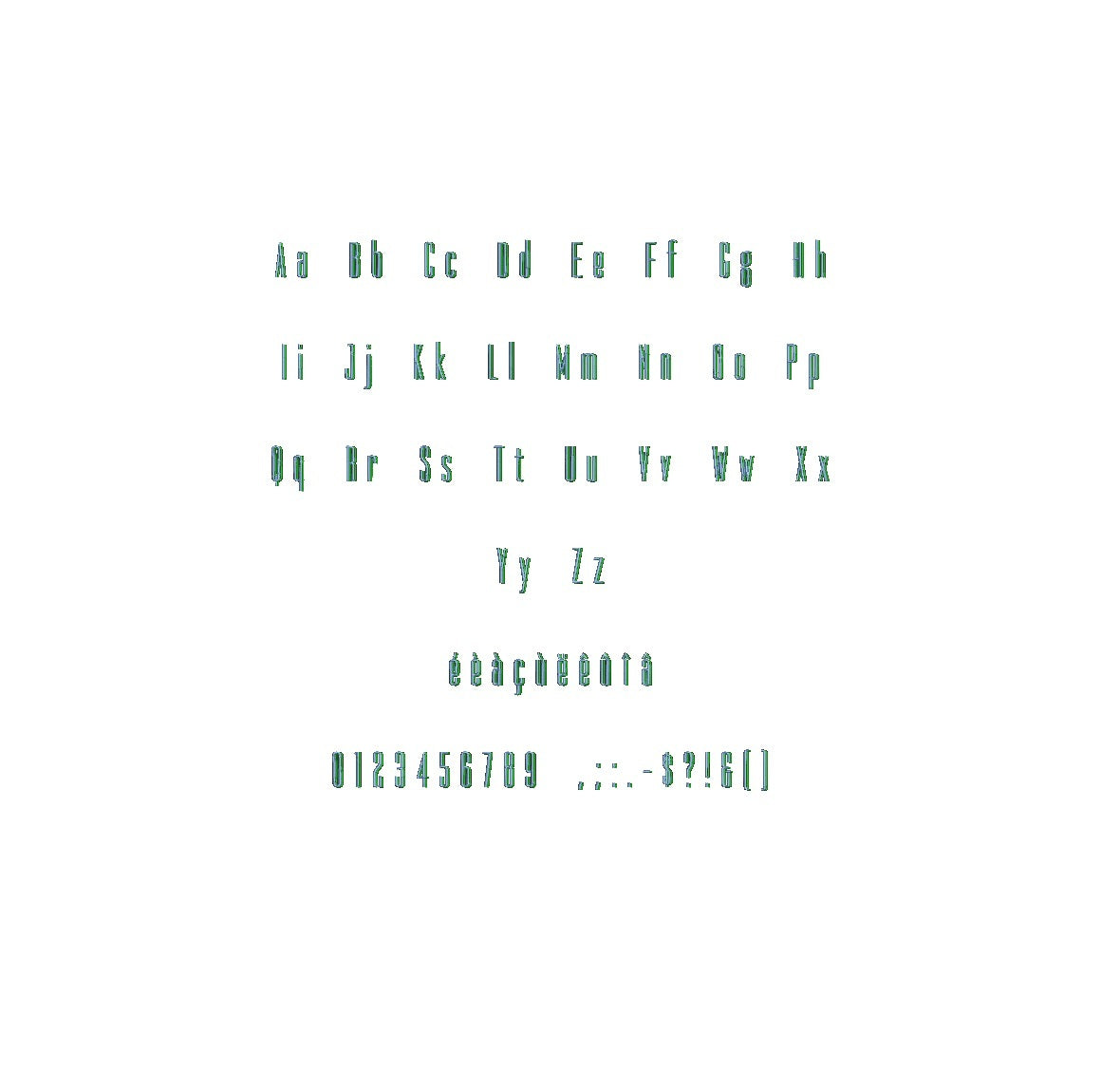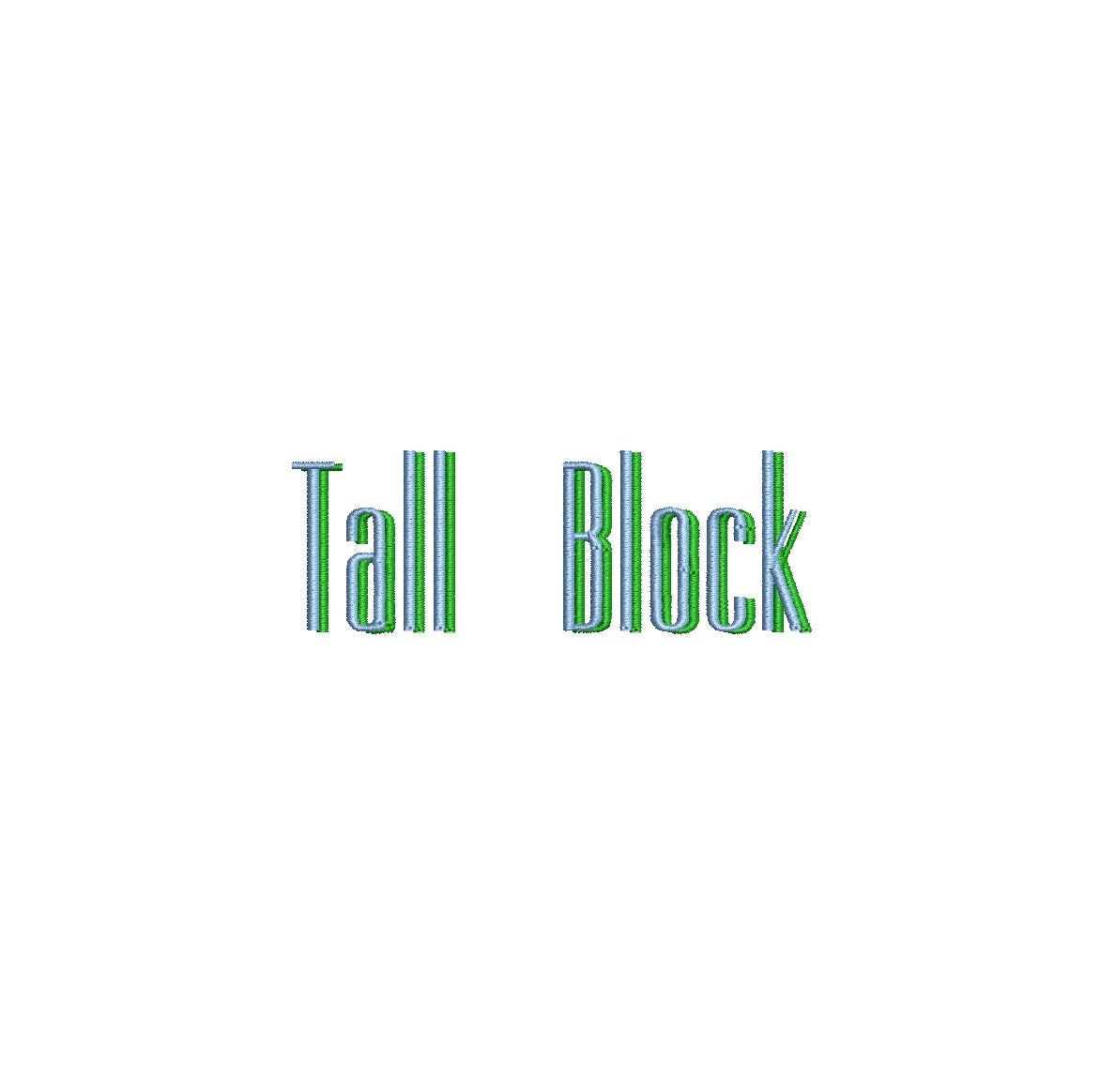
Elevate your embroidery with the bold Tall Block Shadow ESA font. Tailored for Wilcom Studio e4.5.6 and Hatch 3 versions and newer, this font seamlessly blends stature and compatibility. Craft attention-grabbing designs with its commanding shadow effect, adding depth and impact to your lettering. Perfect for diverse applications, from strong monograms to impactful text layouts. Unleash your creativity as Tall Block Shadow ESA font empowers your embroidery. Elevate your designs and leave a lasting impression. Choose this font to infuse your creations with bold presence, redefining your embroidery artistry with a touch of strength.